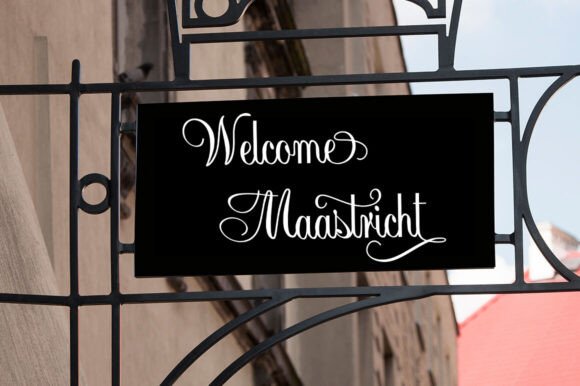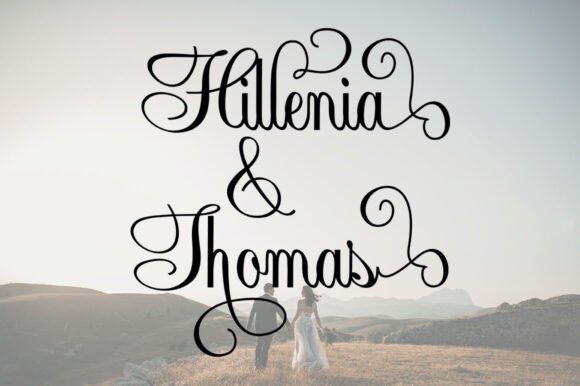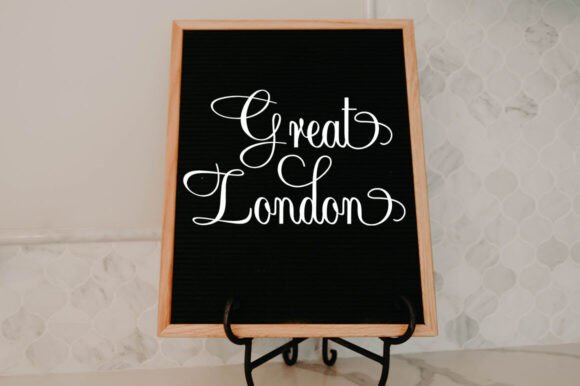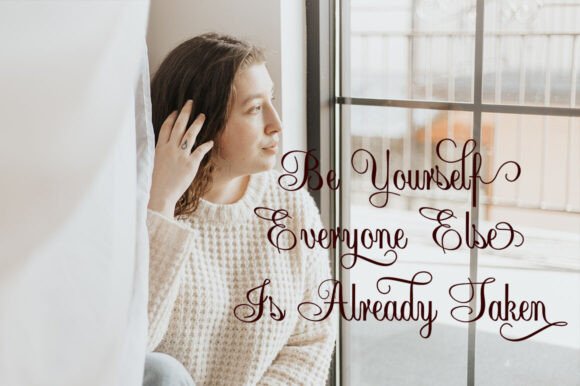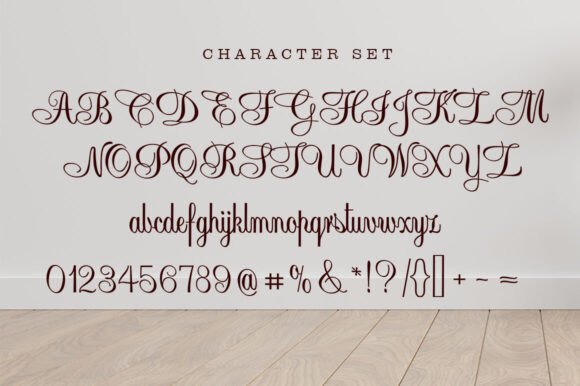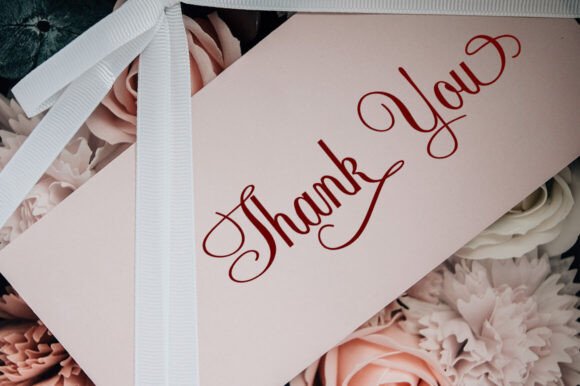
Introducing Amsterdam Font: Elevate Your Designs with Modern Script Calligraphy
In the world of typography, fonts play a crucial role in conveying the tone and aesthetic of a design. For those seeking a touch of elegance and femininity, the Amsterdam Font is an exceptional choice. This modern script calligraphy font is designed to add a unique flair to various design projects, from wedding invitations to business cards. In this article, we’ll delve into the features and benefits of the Amsterdam Font, exploring how it can elevate your designs and streamline your creative process.
What is Amsterdam Font?
Amsterdam Font is a contemporary script calligraphy font characterized by its irregular baseline, which gives it a distinctive, hand-crafted feel. This trendy and feminine style makes it perfect for designers and crafters looking to infuse their work with a touch of sophistication and charm. The font’s unique appearance is sure to capture attention and leave a lasting impression on your audience.
Key Features of Amsterdam Font
- Irregular Baseline: The font’s irregular baseline adds a touch of whimsy and humanizes the text, making it more approachable and engaging.
- Trendy and Feminine: Amsterdam Font boasts a modern, feminine style that is perfect for designs targeting a female audience or requiring a touch of elegance.
- PUA Encoded: The font is PUA (Private Use Area) encoded, allowing easy access to a wide range of glyphs and ligatures, which can be used to create stunning text arrangements.
- Versatile: Amsterdam Script looks lovely on various design materials, including wedding invitations, thank you cards, quotes, greeting cards, logos, business cards, and more.
Amsterdam Font is an excellent choice for a variety of creative projects. Its unique style and versatility make it suitable for:
- Wedding and Event Stationery: Add a touch of romance and sophistication to wedding invitations, save-the-date cards, and other event materials.
- Branding and Logo Design: Use Amsterdam Font to create memorable logos and brand identities that exude elegance and femininity.
- Social Media Graphics: Elevate your social media presence with eye-catching graphics, quotes, and posts featuring the Amsterdam Font.
- Digital and Print Media: The font’s clarity and readability make it perfect for use in digital and print media, including magazines, blogs, and advertisements.
Tips for Using Amsterdam Font
To get the most out of Amsterdam Font, consider the following tips:
- Pair with Neutral Backgrounds: Allow the font’s unique style to take center stage by pairing it with neutral backgrounds that don’t compete for attention.
- Experiment with Colors: Amsterdam Font looks stunning in a variety of colors, so don’t be afraid to experiment and find the perfect hue to match your brand or design.
- Mix and Match: Combine Amsterdam Font with other fonts to create visually appealing text arrangements and add depth to your designs.
Why Choose Amsterdam Font?
With so many fonts available, why choose Amsterdam Font? Here are a few compelling reasons:
- Unique Style: Amsterdam Font offers a distinctive, modern script calligraphy style that sets it apart from more traditional fonts.
- Ease of Use: The font’s PUA encoding makes it easy to access and use a wide range of glyphs and ligatures, streamlining your design process.
- Versatility: Amsterdam Font is suitable for a variety of design projects, making it a valuable addition to any designer’s toolkit.
In conclusion, Amsterdam Font is an exceptional choice for designers and crafters seeking to add a touch of elegance and sophistication to their work. Its unique style, versatility, and ease of use make it an excellent addition to any design project. Whether you’re creating wedding invitations, logos, or social media graphics, Amsterdam Font is sure to elevate your designs and leave a lasting impression on your audience.